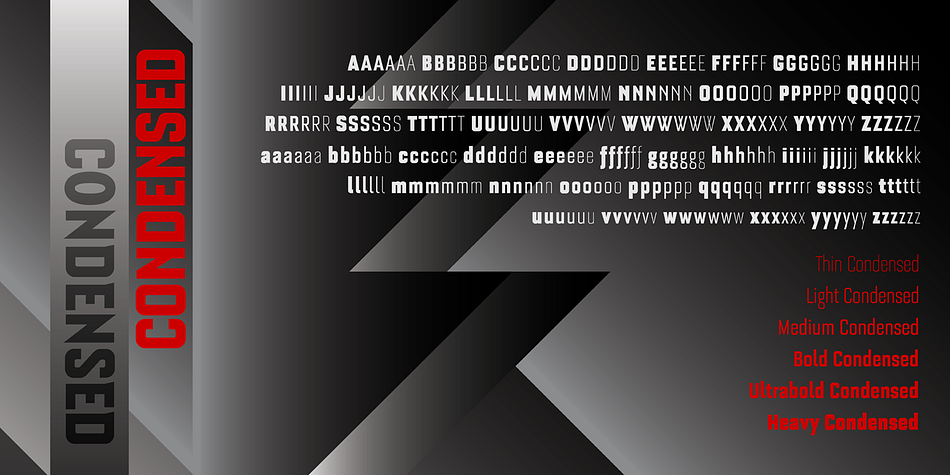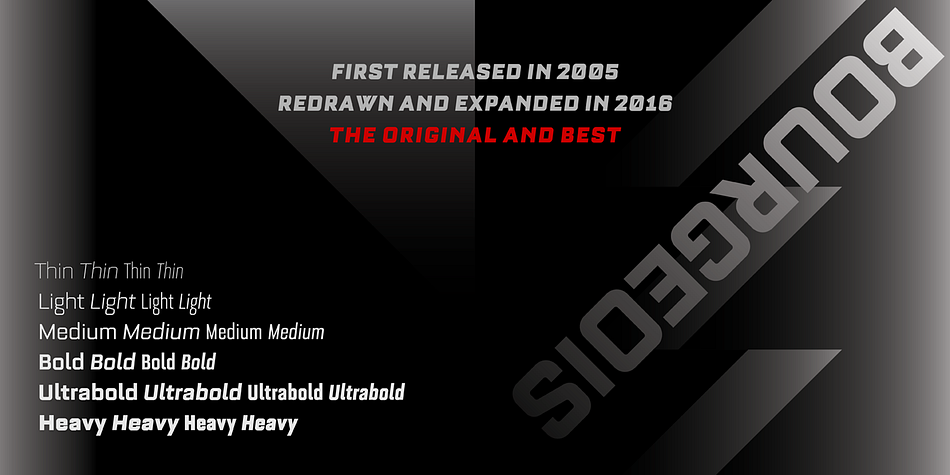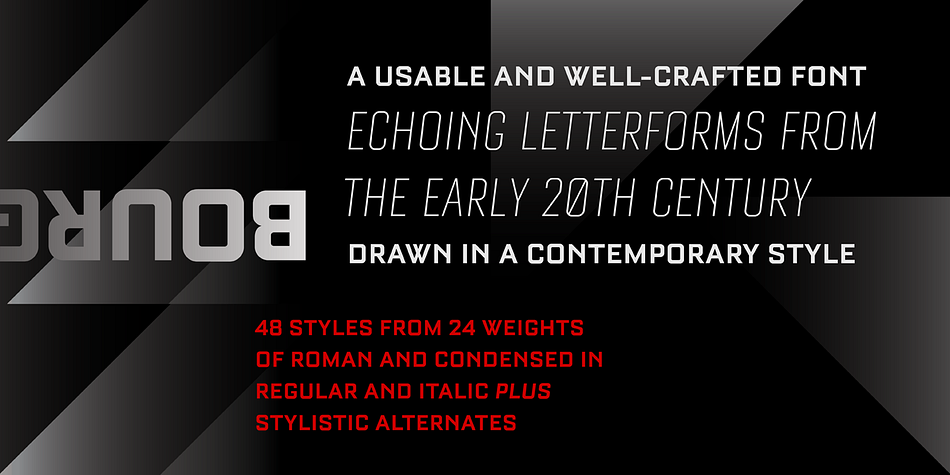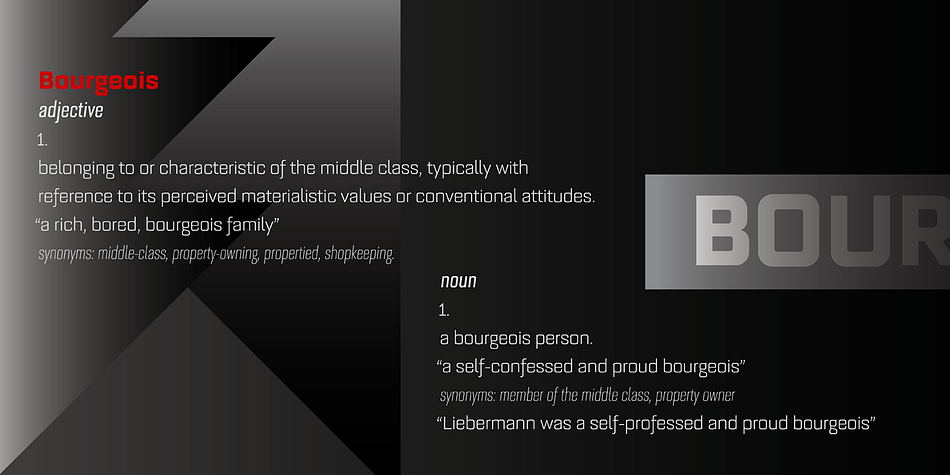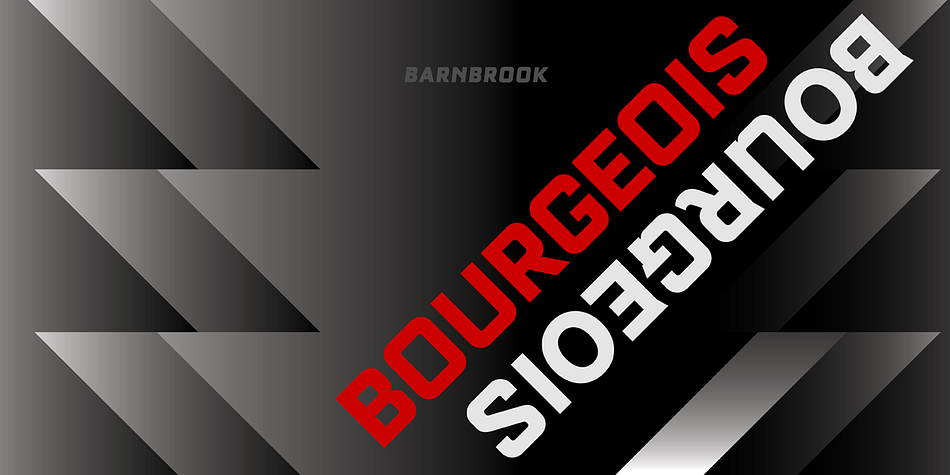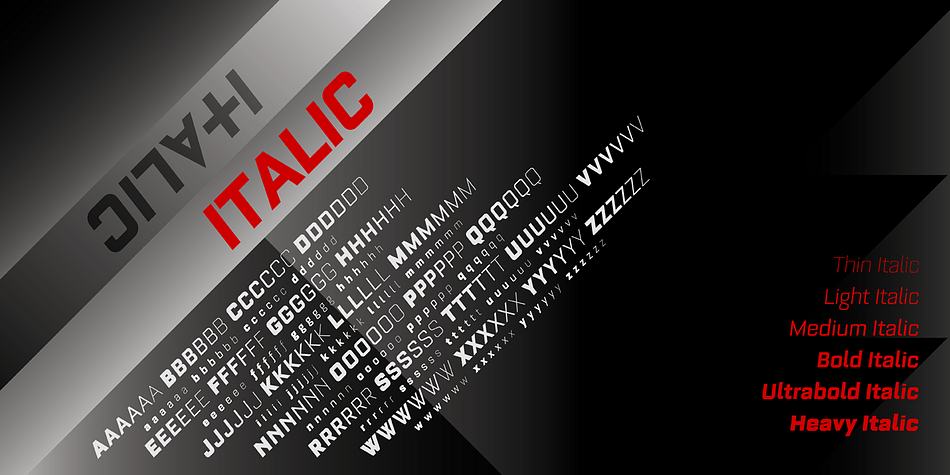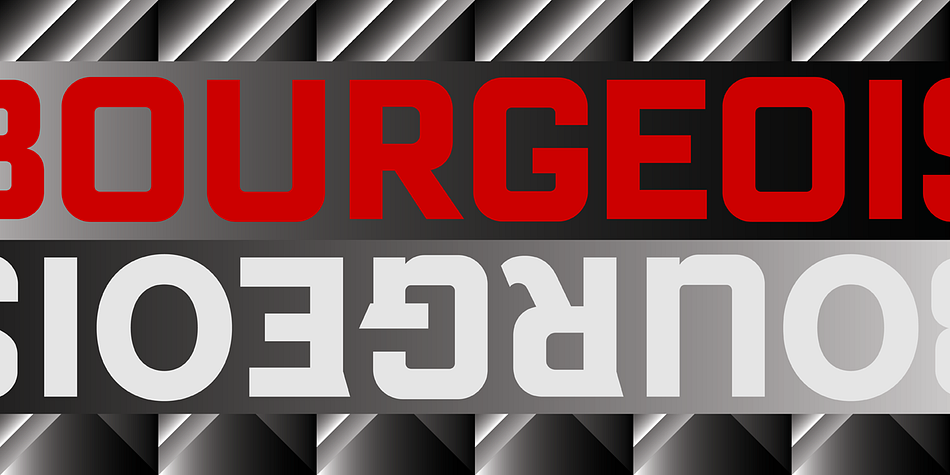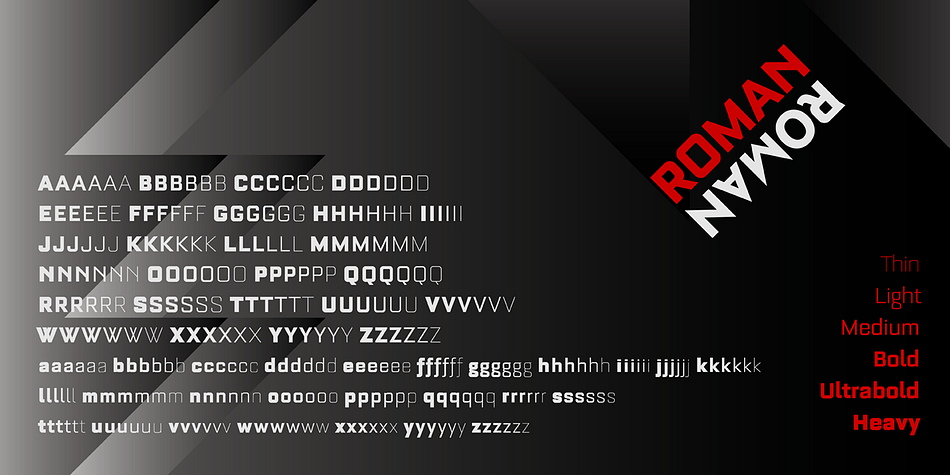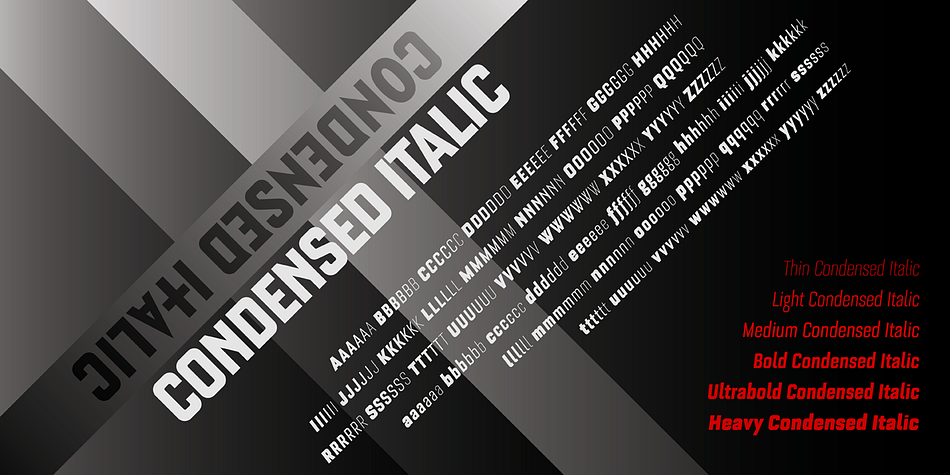
Designed by Jonathan Barnbrook and Marcus Leis Allion, Bourgeois is a sans serif font family. This typeface has twenty-four styles and was published by Barnbrook Fonts.
A squarish geometric font that speaks with a distinctive self-assuredness, making it highly-suited to branding and identity work. With 24 styles in its 2016 form, Bourgeois is one of our most extensive, versatile and widely-used sans-serif typefaces. In 2018, we added a further 24 styles in its slab-serif variant: Bourgeois Slab.